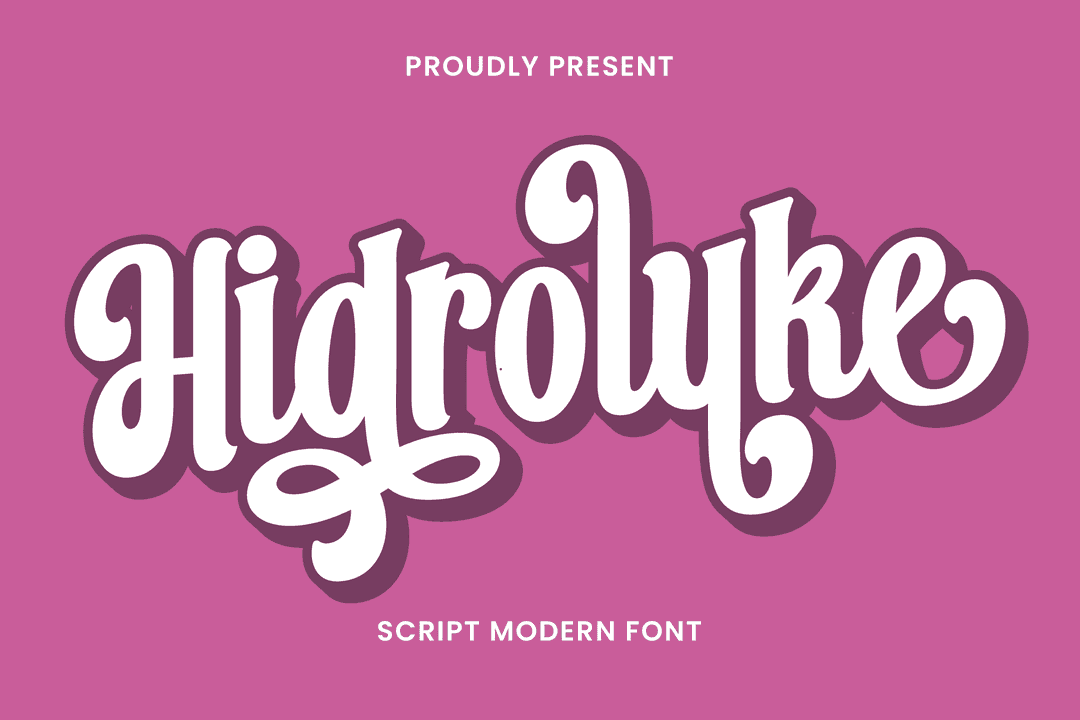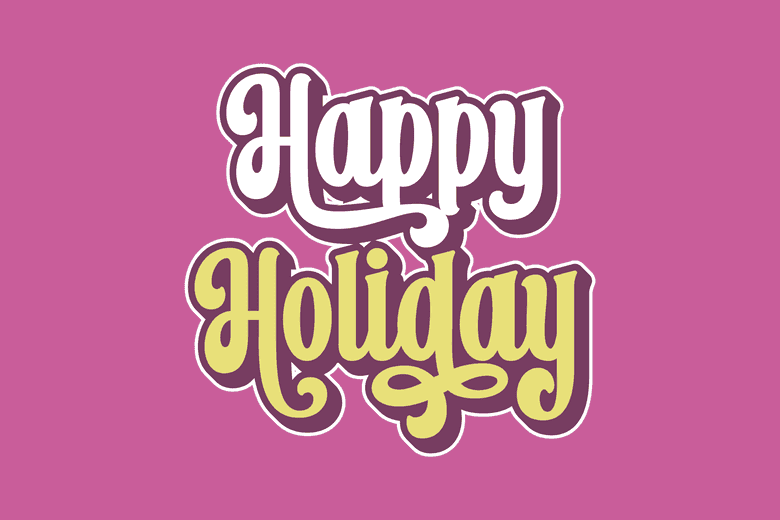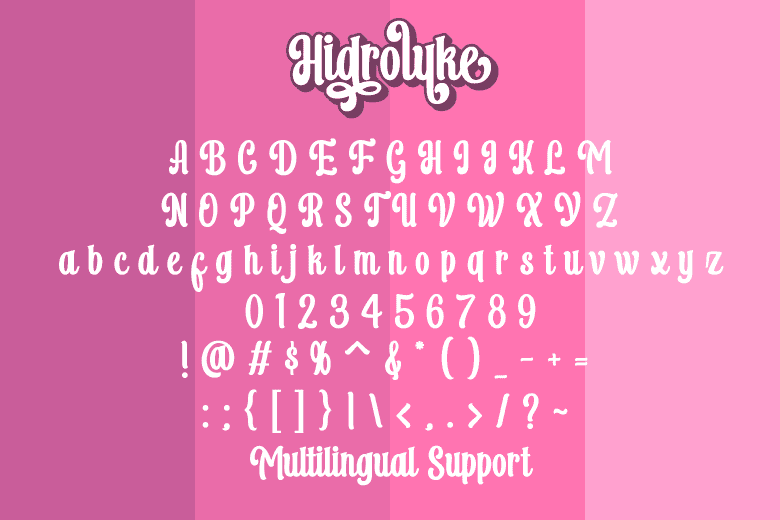
Hidroluke is a contemporary script font designed to assist with designing logotypes in an eye-catching modern style for companies or clients. Create everything graphic from badges, signage and headlines – even logotypes! Additionally, use Hidroluke in urban design projects, t-shirt/apparel poster creation or any other graphic need you may have!